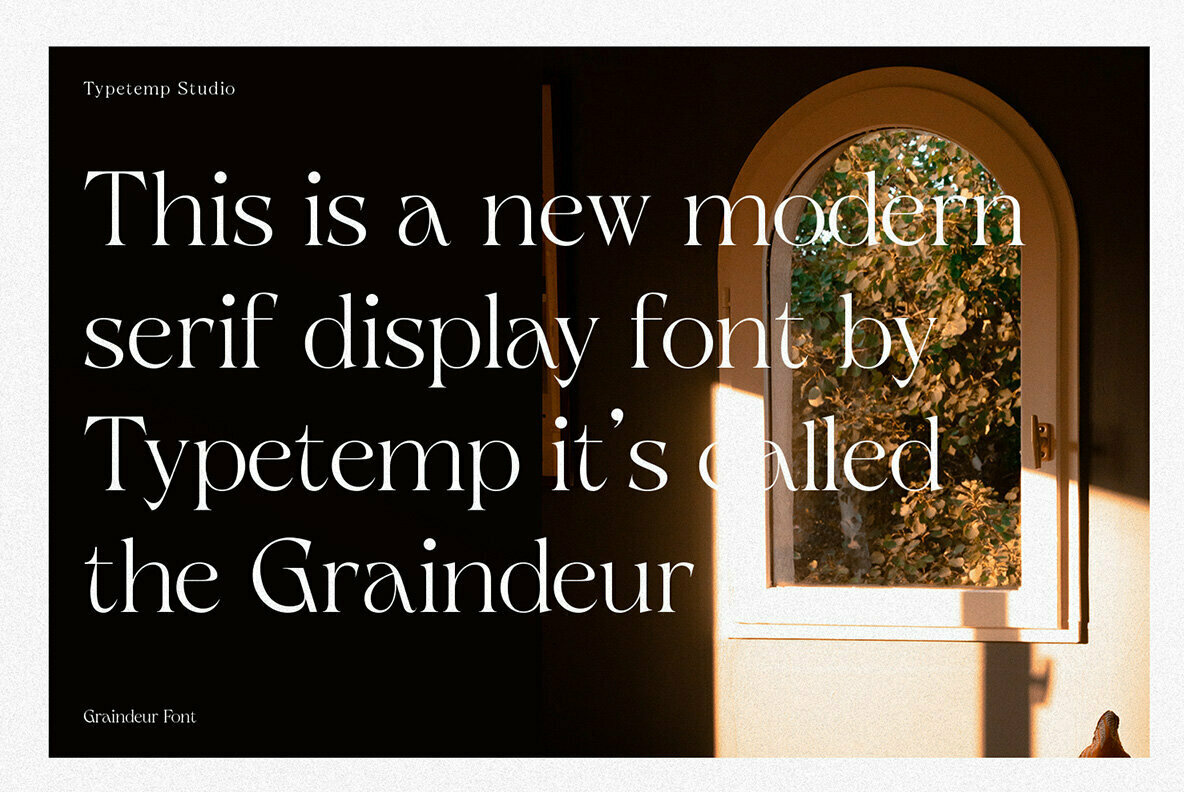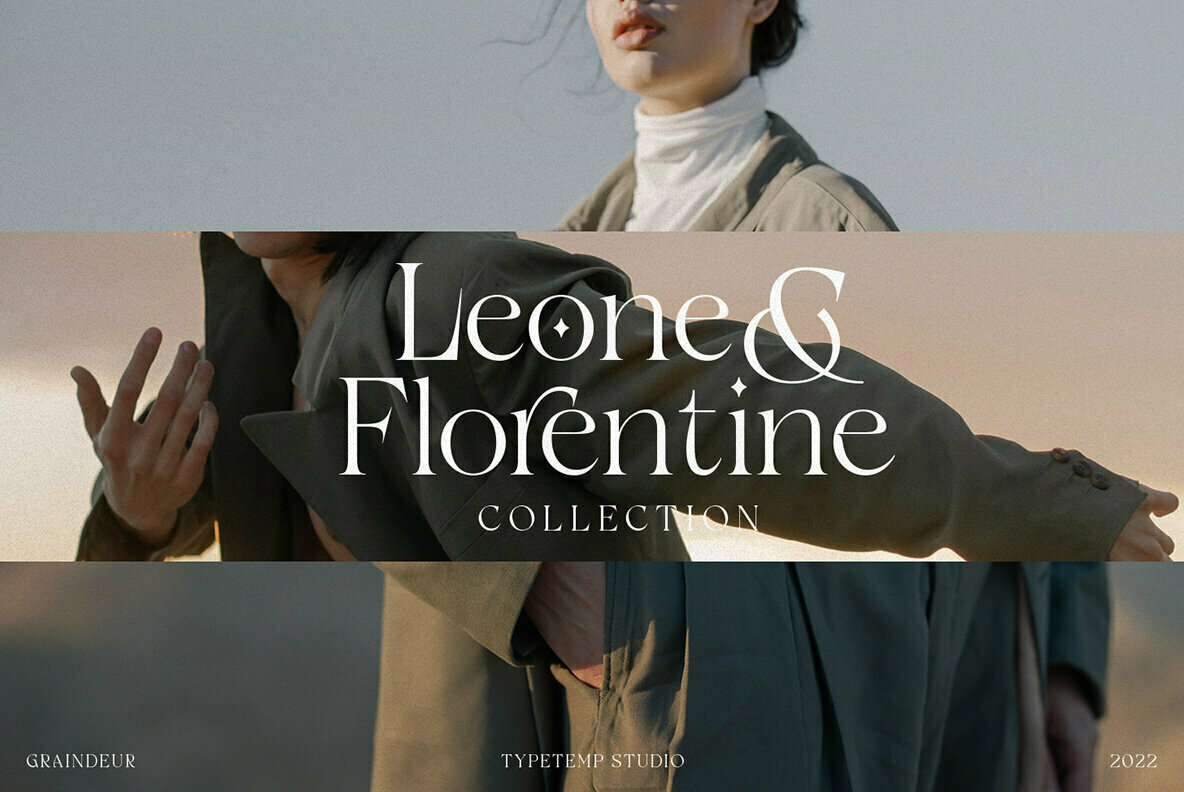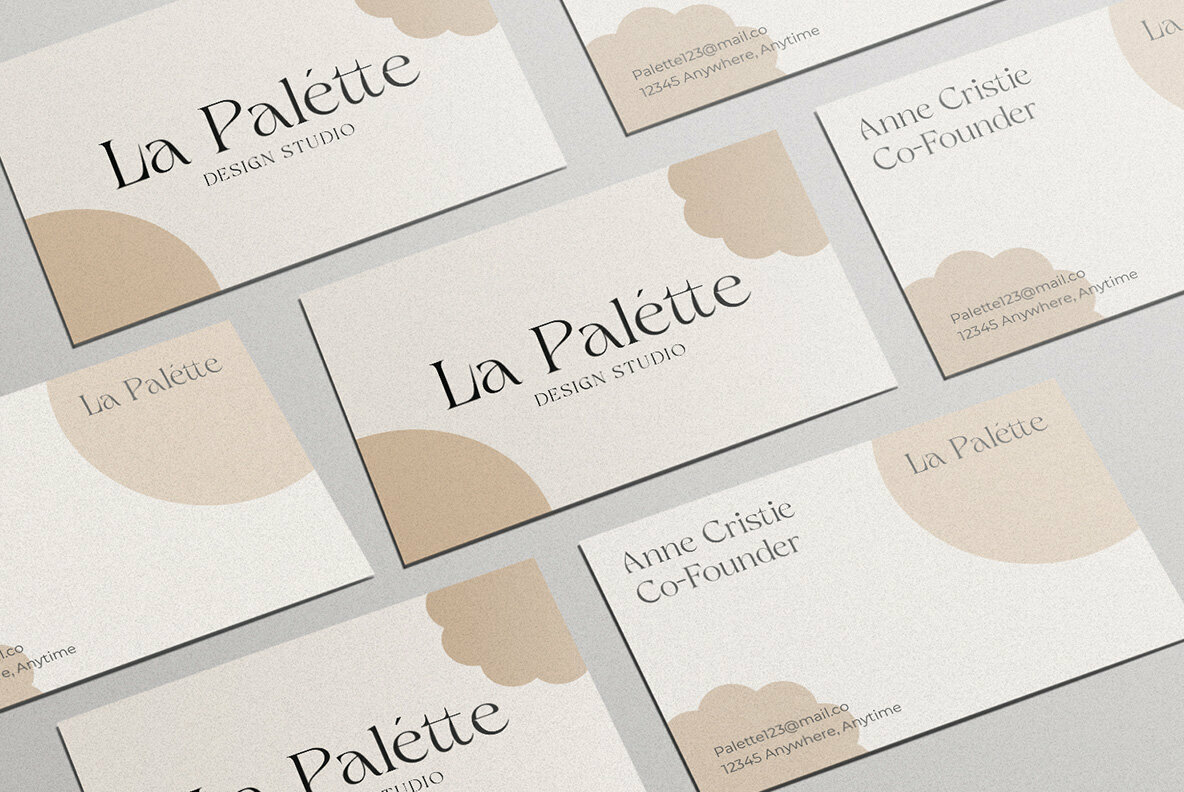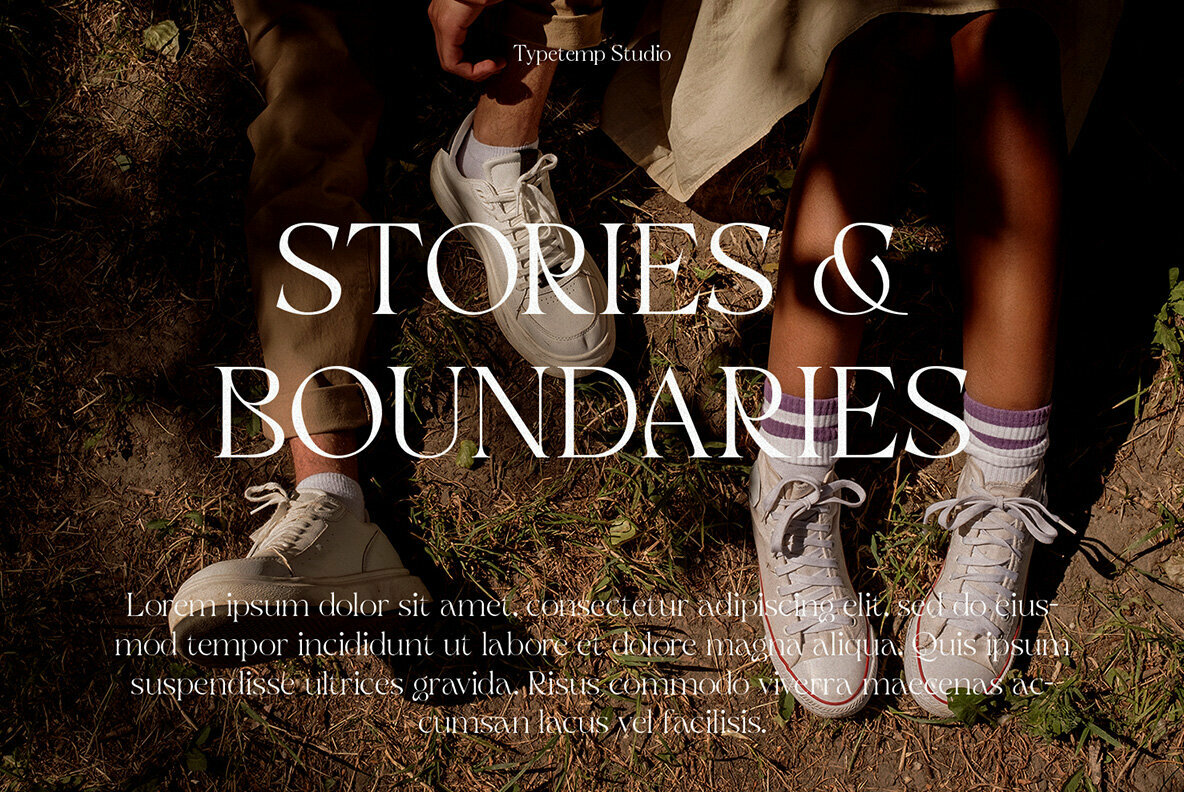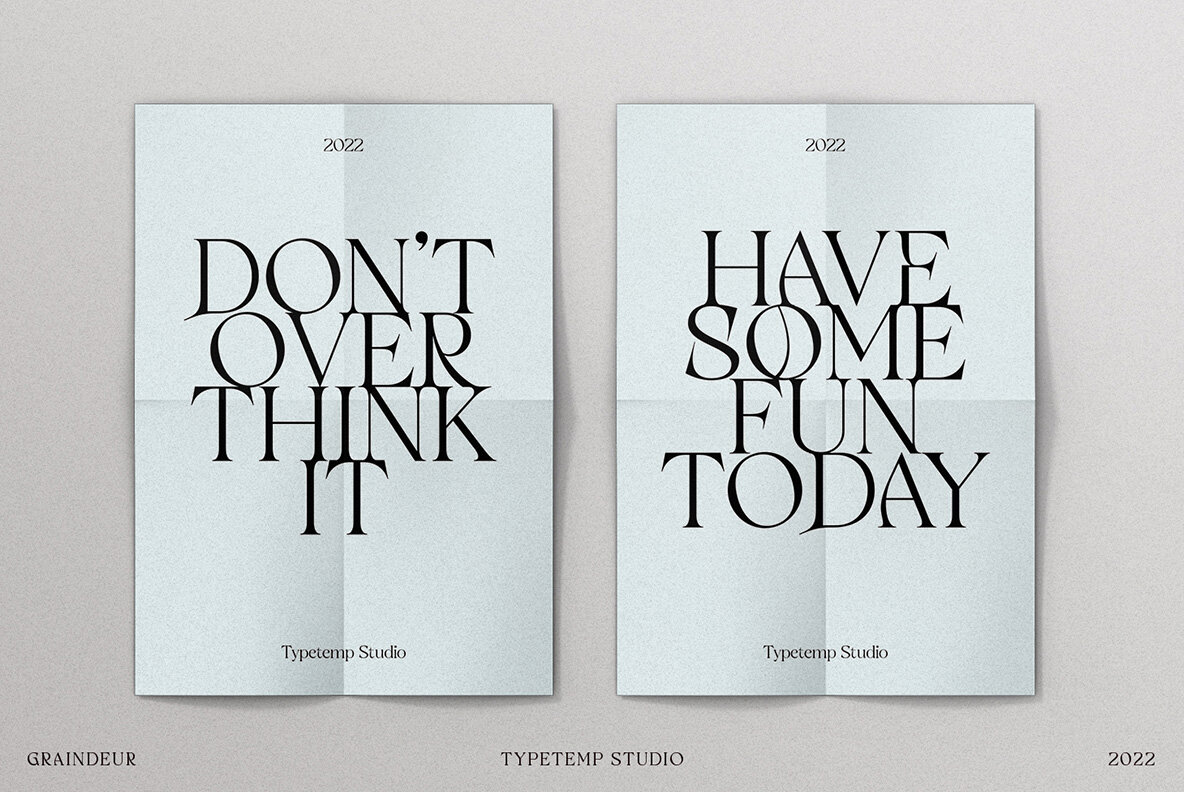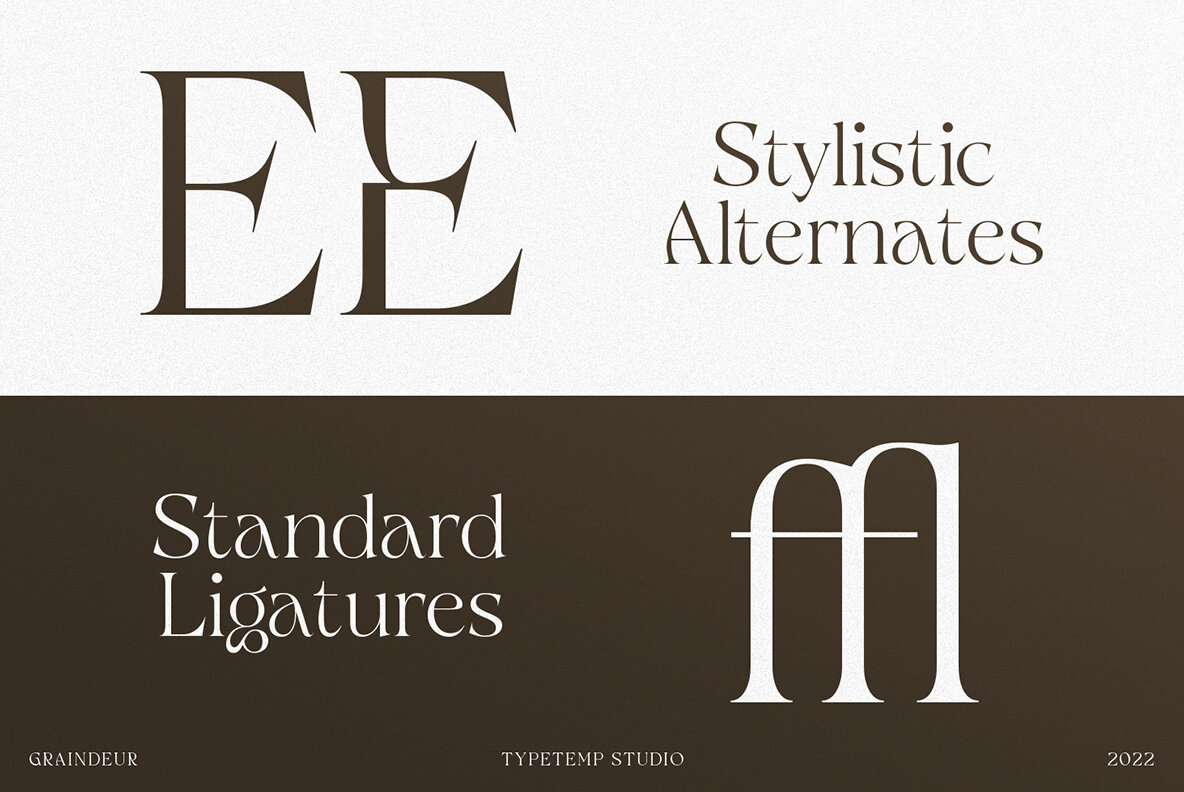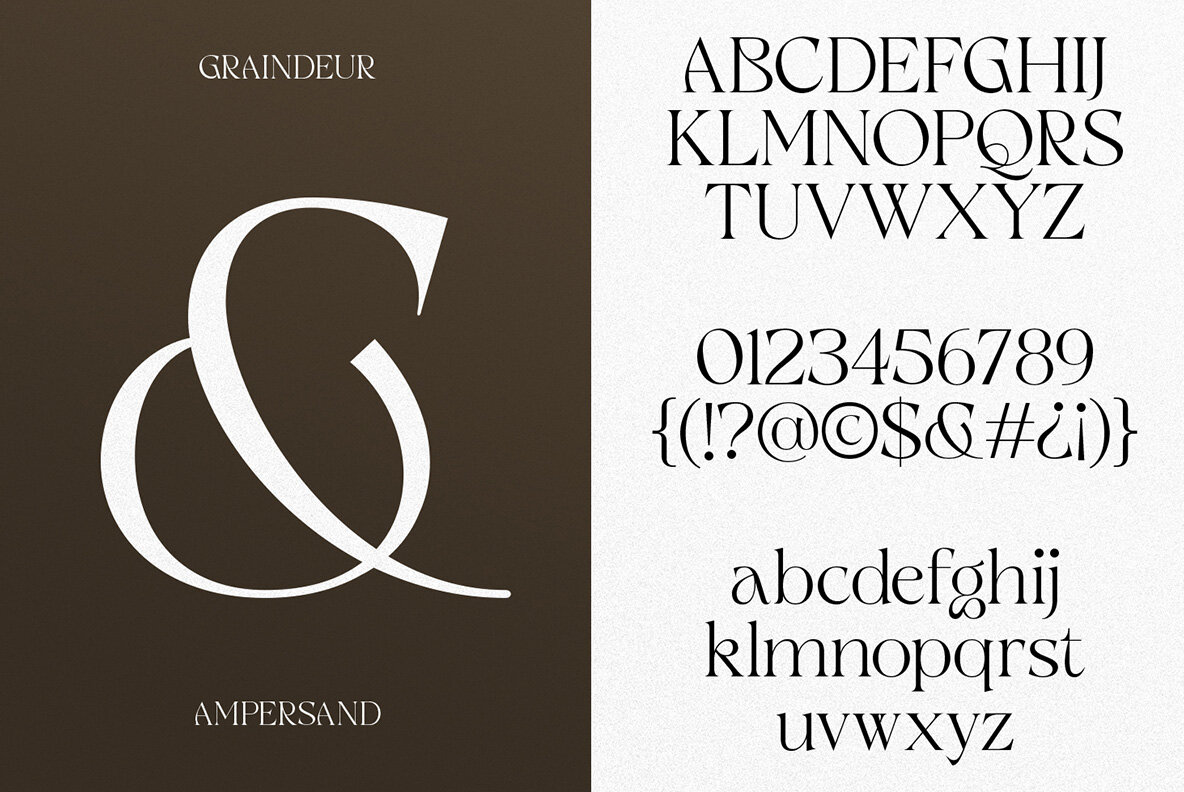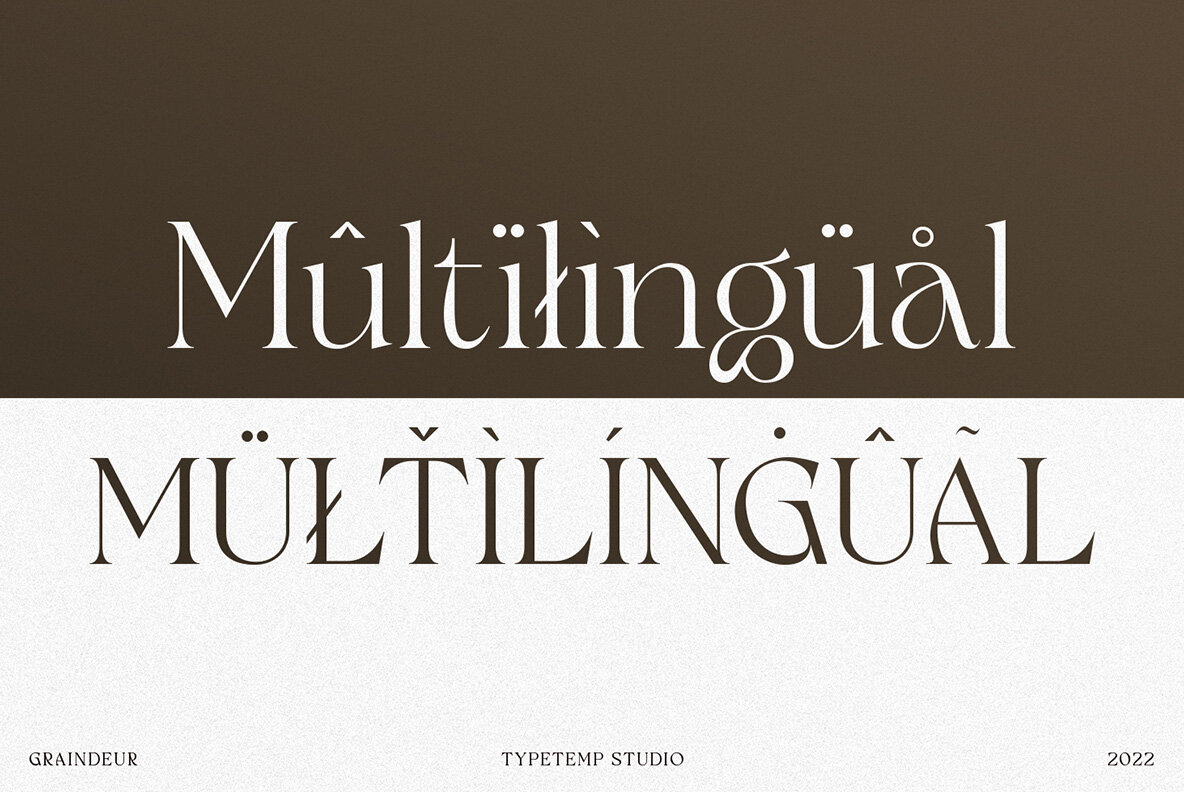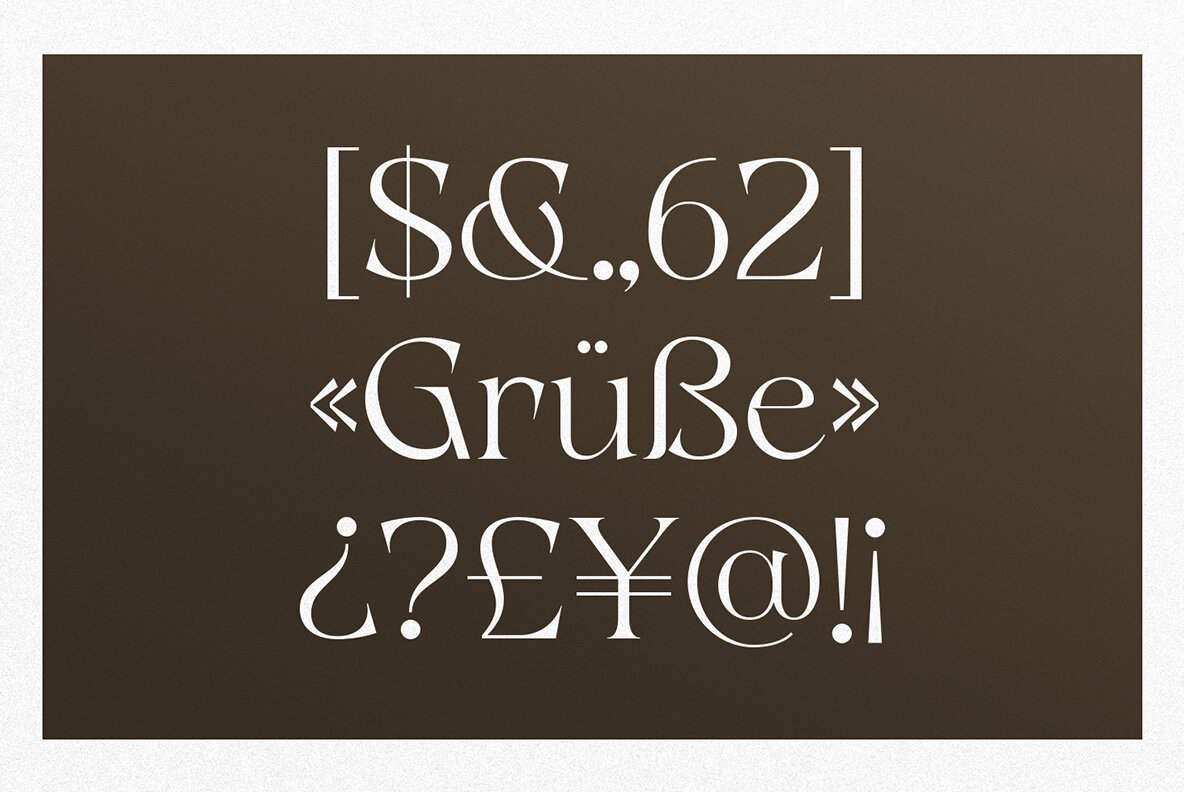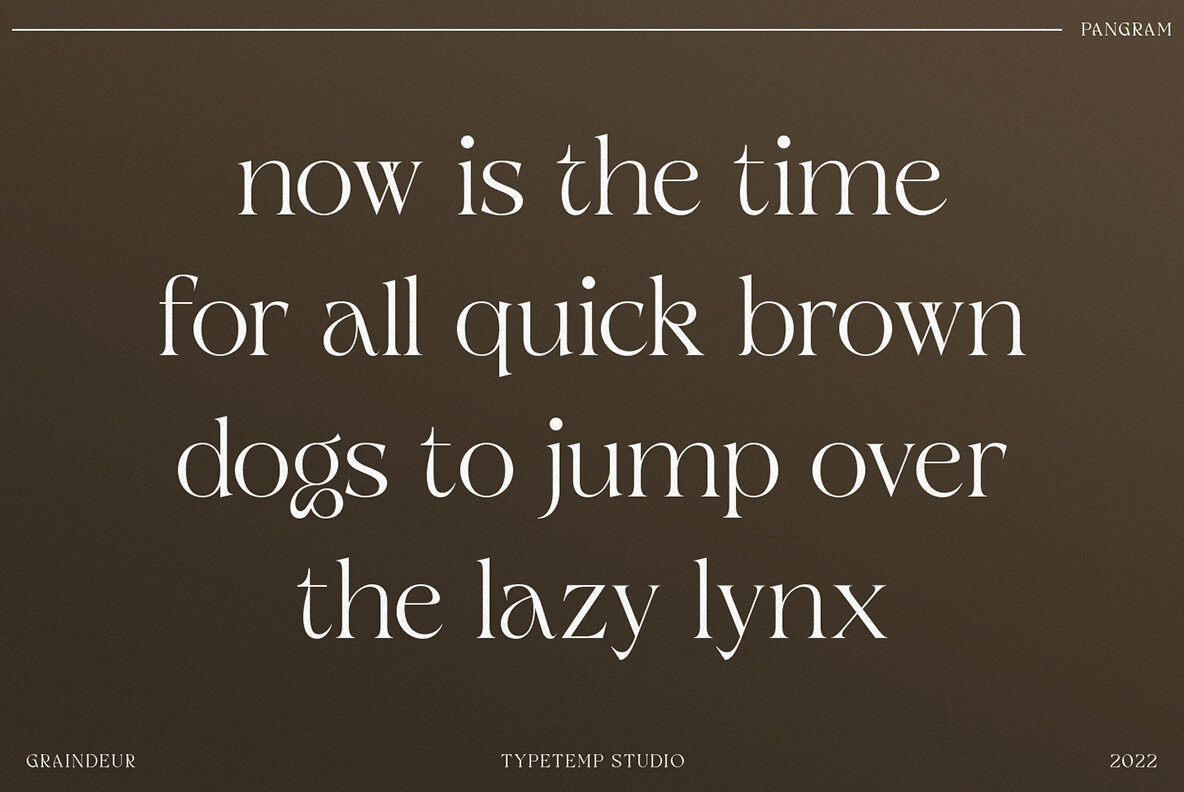
Graindeur Font
Graindeur Regular
Graindeur by Typetemp Studio presents a stylistic blend of modern and traditional serif aesthetics. This display font not only radiates elegance but also offers versatility, making it suitable for everything from logo creation to wedding invitations. With thoughtfully included alternatives and ligatures, Graindeur enhances the visual impact of projects ranging from magazine imagery to social media graphics.Graindeur: A Modern Serif Display Masterpiece